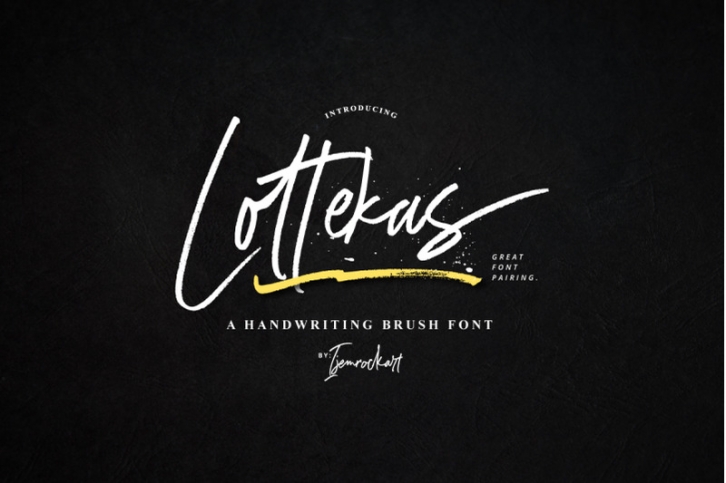
Lottekas Brush FONT Download
Lottekas Brush Font Download
Lottekas Brush is handmade signature style font with stunning characters. Ideal for logos, name tag, handwritten quotes, product packaging, merchandise, social media & greeting cards. It contains a full set of lower & uppercase letters, a large range of punctuation, numerals, and multilingual support.
The font also contains several alternatives for lowercase characters, accessible in the Adobe Illustrator Glyphs panel, or under Stylistic Alternates in the Adobe Photoshop OpenType menu. But If you don't have any opentype specific software, you can still use Collatin as is with its standard lowercase and uppercase letters.